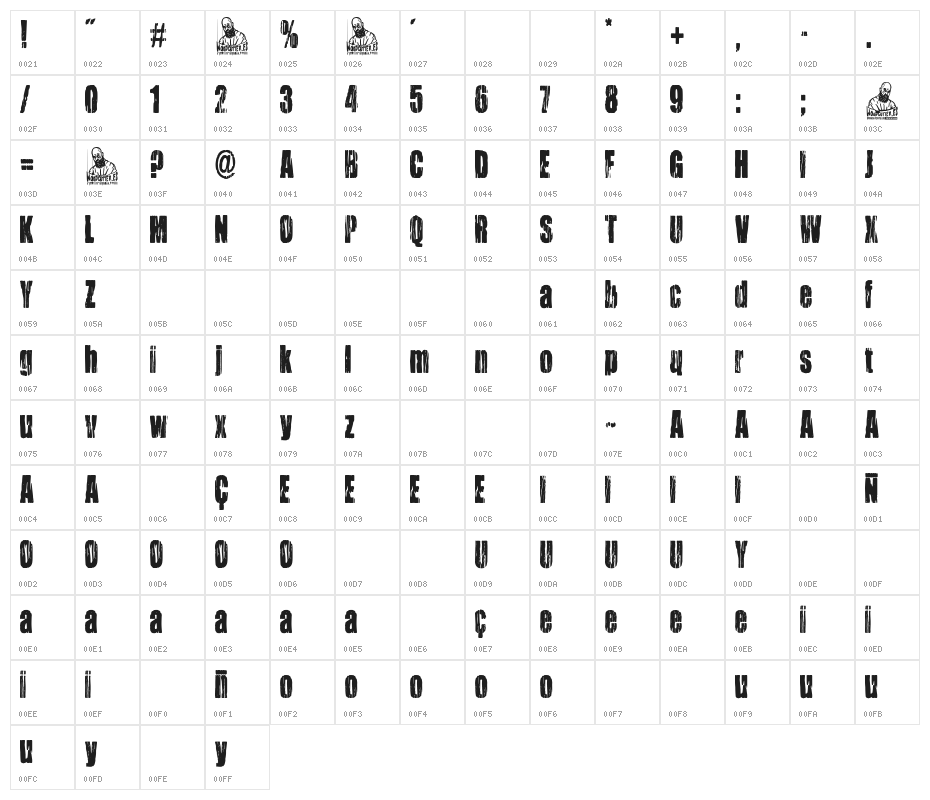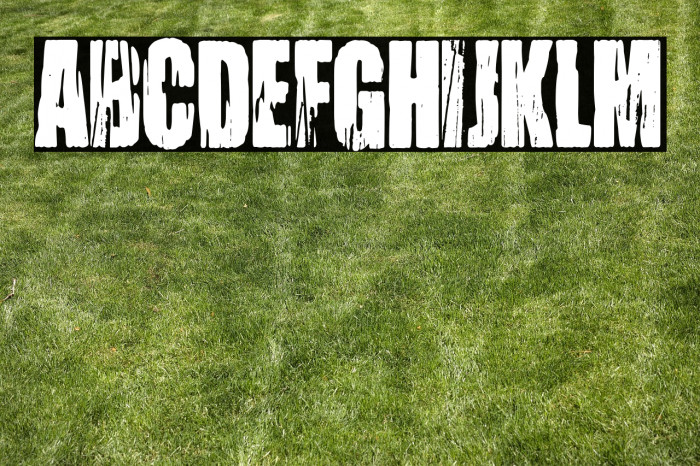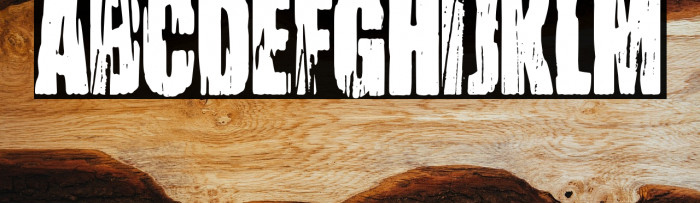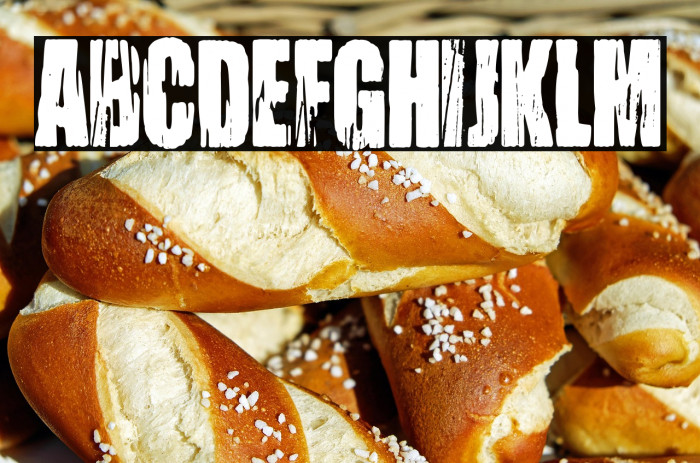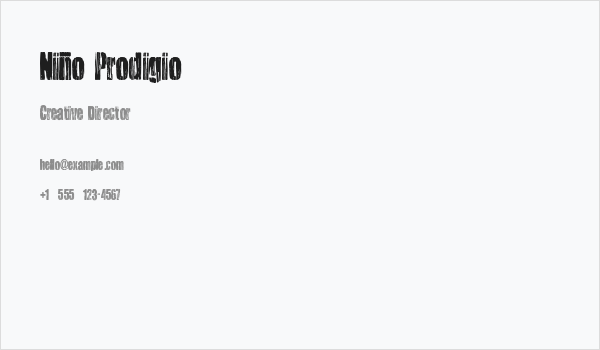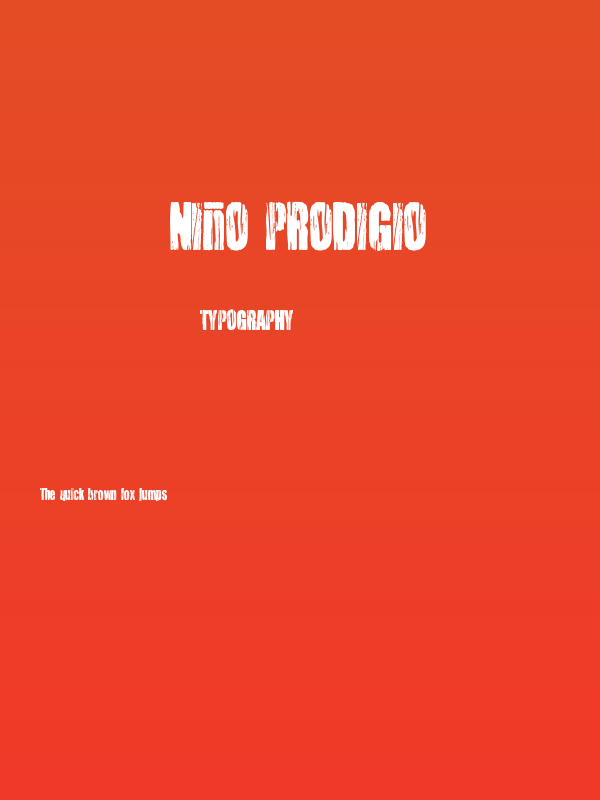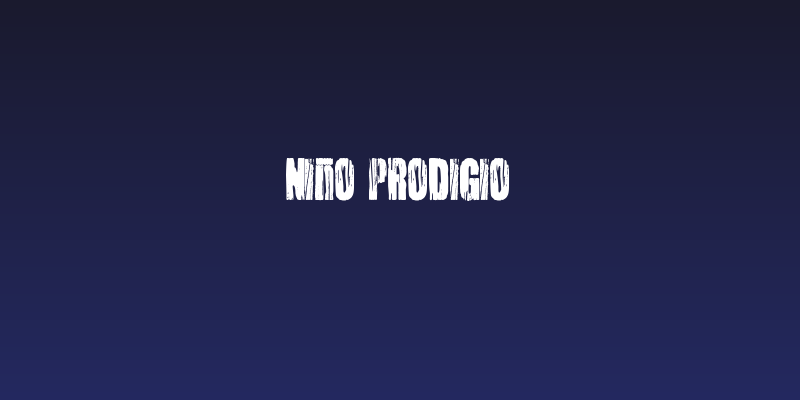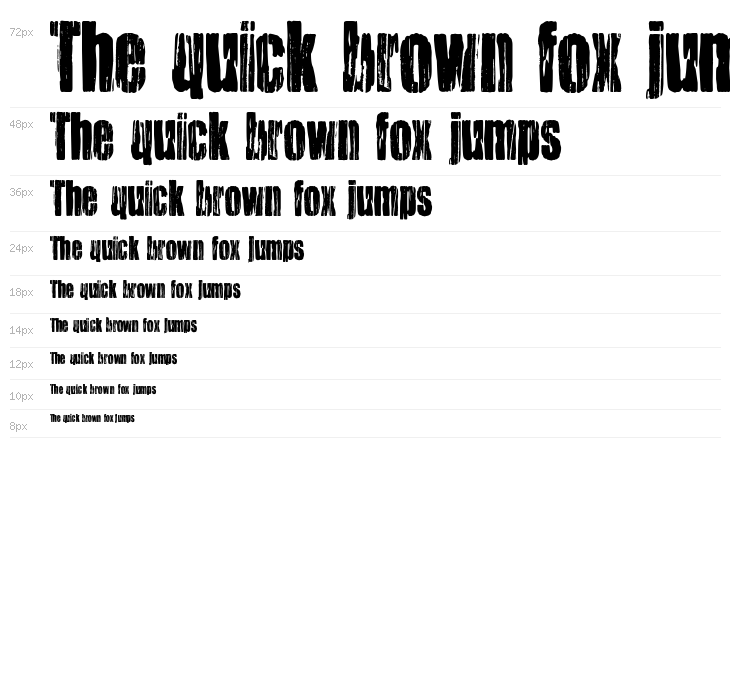
Niño Prodigio Font
Niño Prodigio Description
This font features a rugged, distressed style with a bold and impactful presence. The characters are heavily textured, giving them a worn and weathered appearance, reminiscent of vintage or grunge aesthetics. The uppercase and lowercase letters maintain a consistent boldness, while the numbers and special characters follow the same distressed theme. The overall look is striking and attention-grabbing, making it suitable for designs that require a strong visual impact.
| Overall Style | Vintage, Grunge |
| Proposed Projects | Ideal for posters, album covers, branding for edgy or alternative products, and any design needing a strong, gritty impact. |